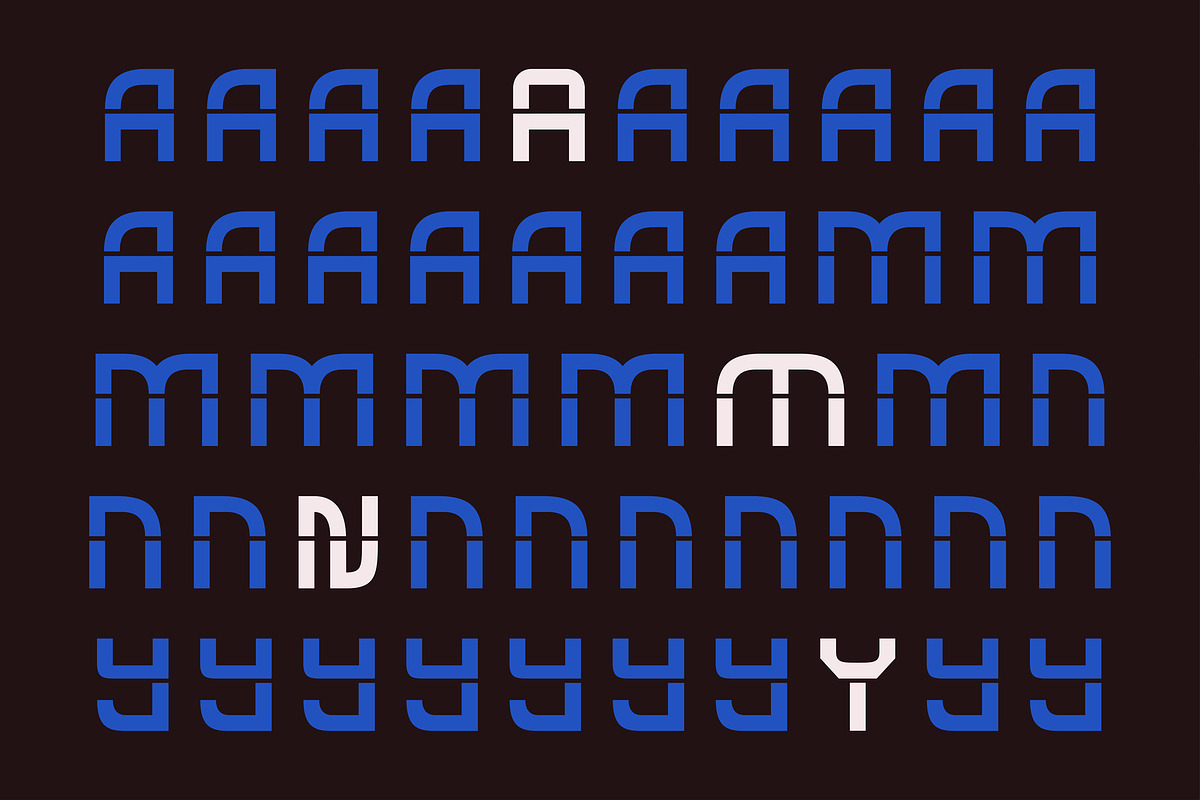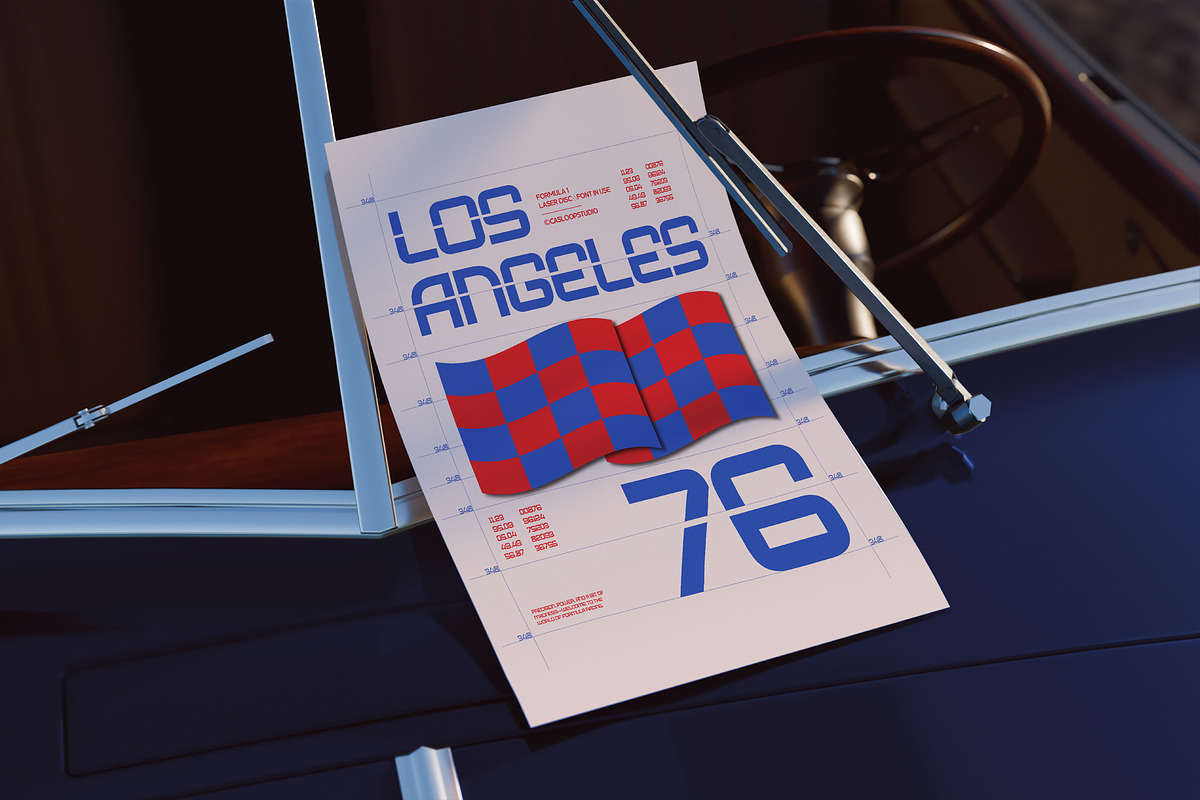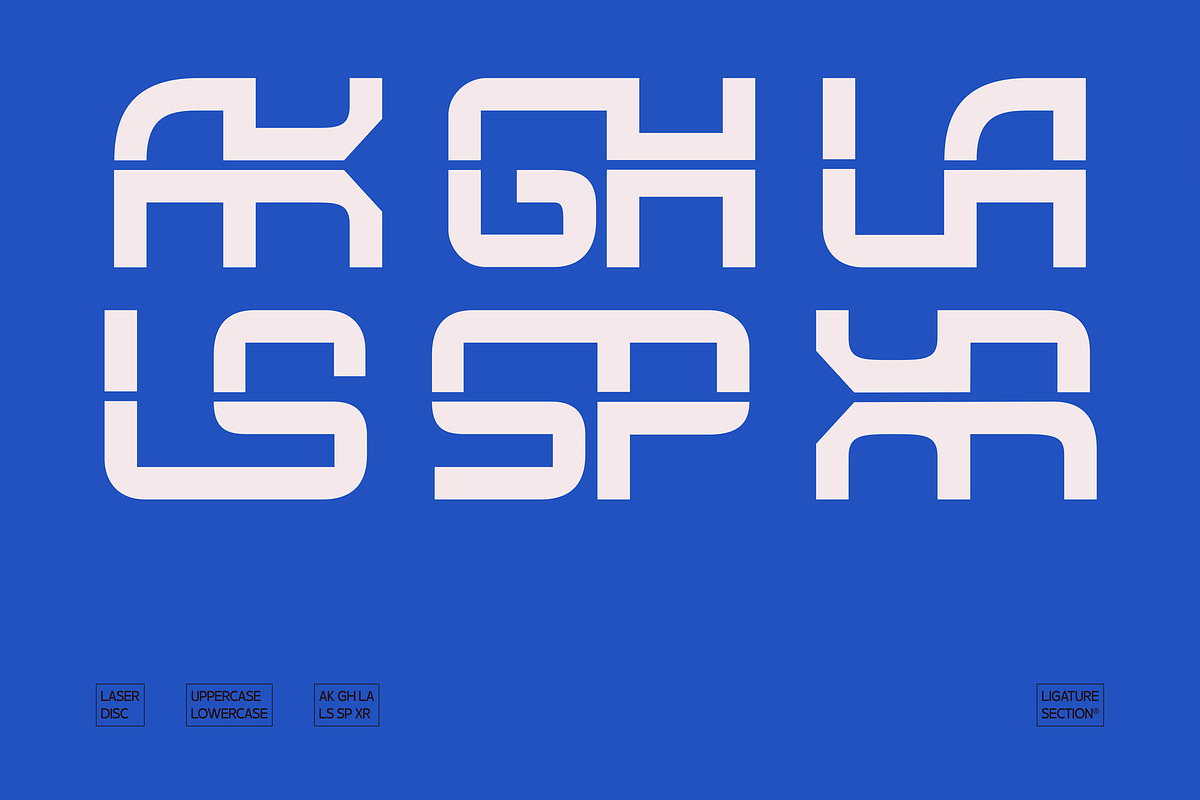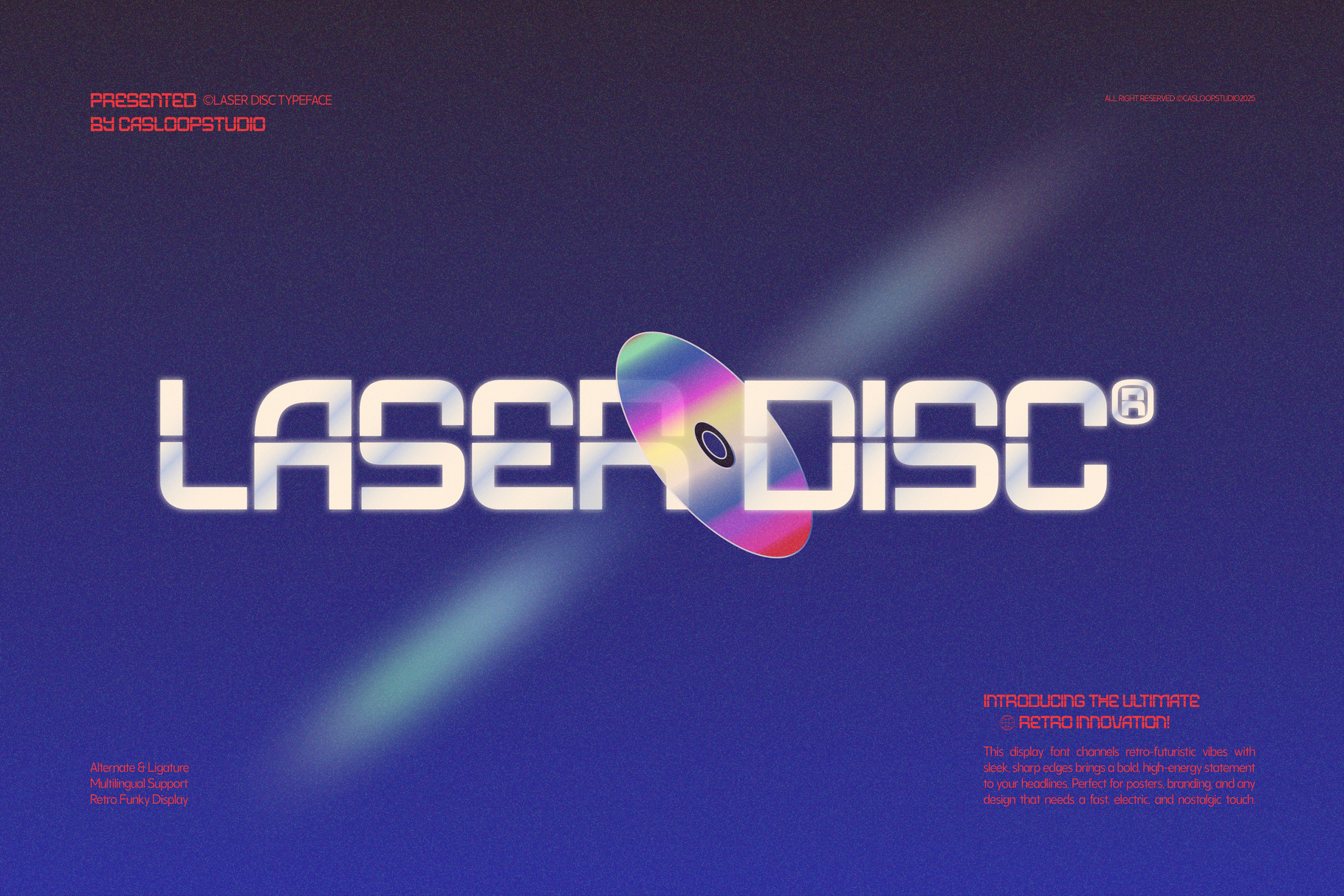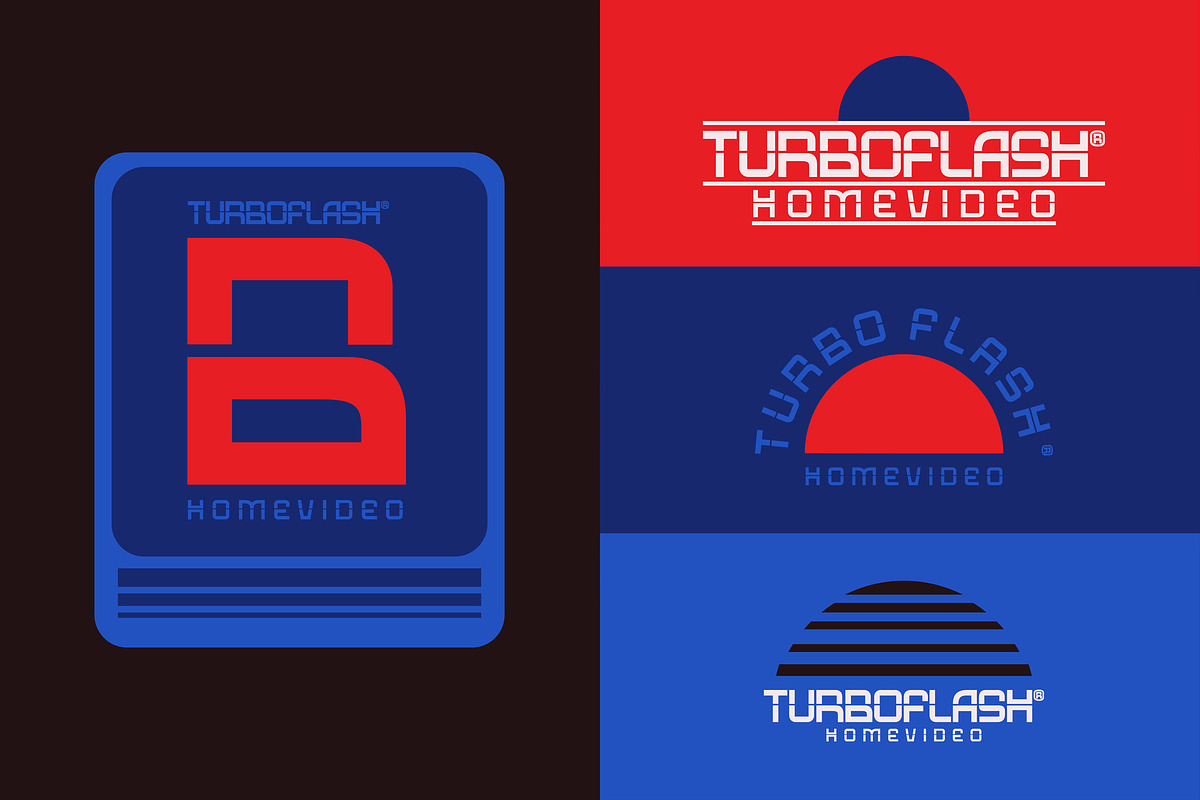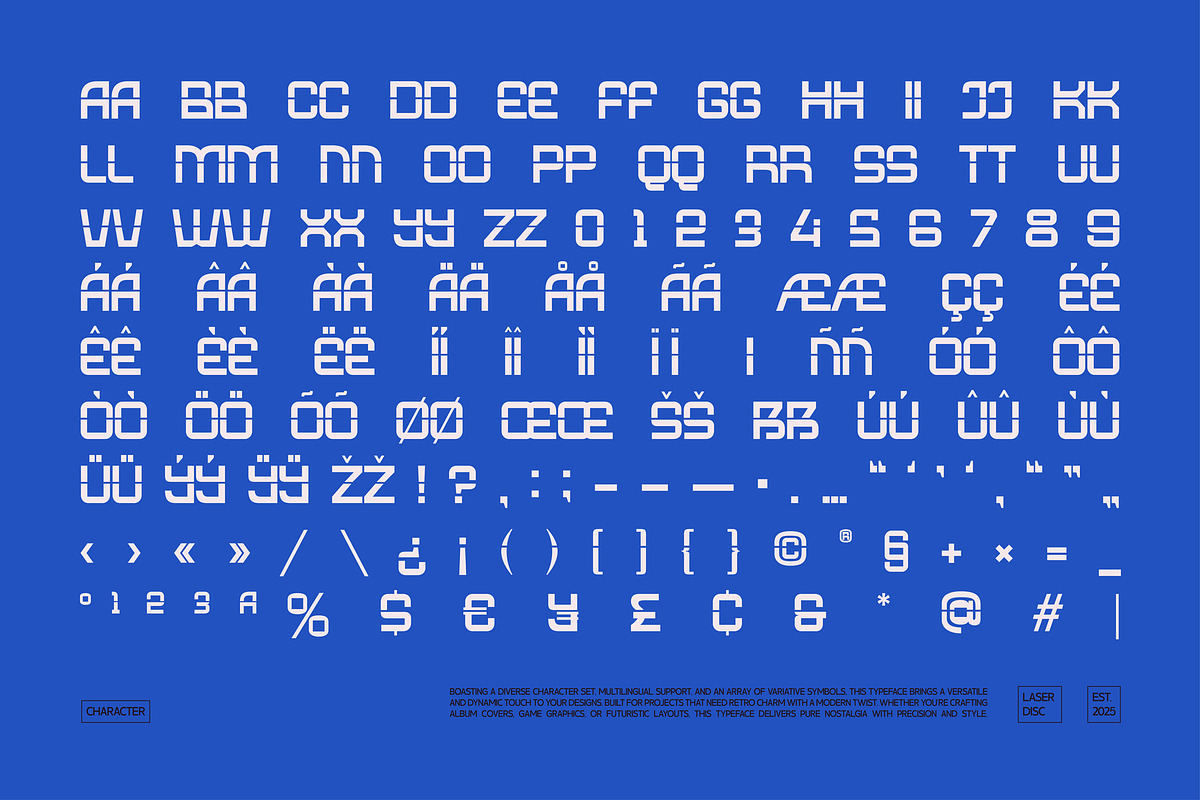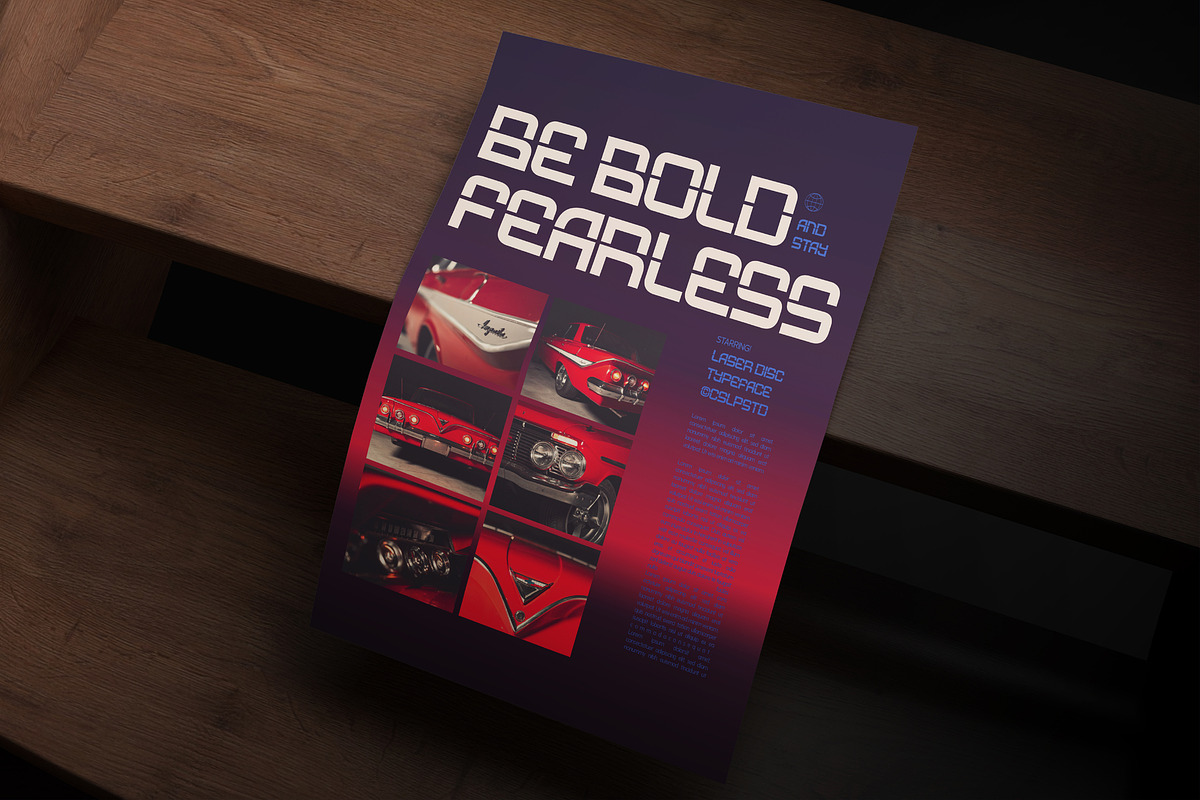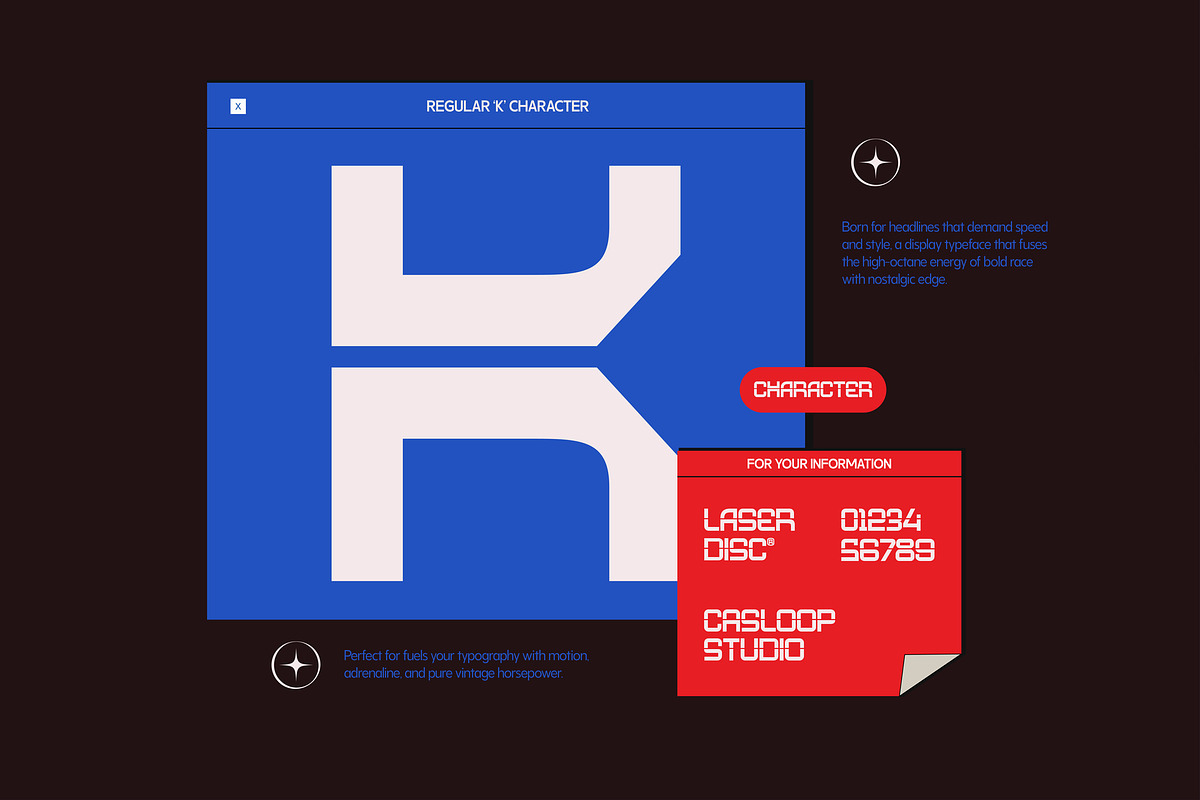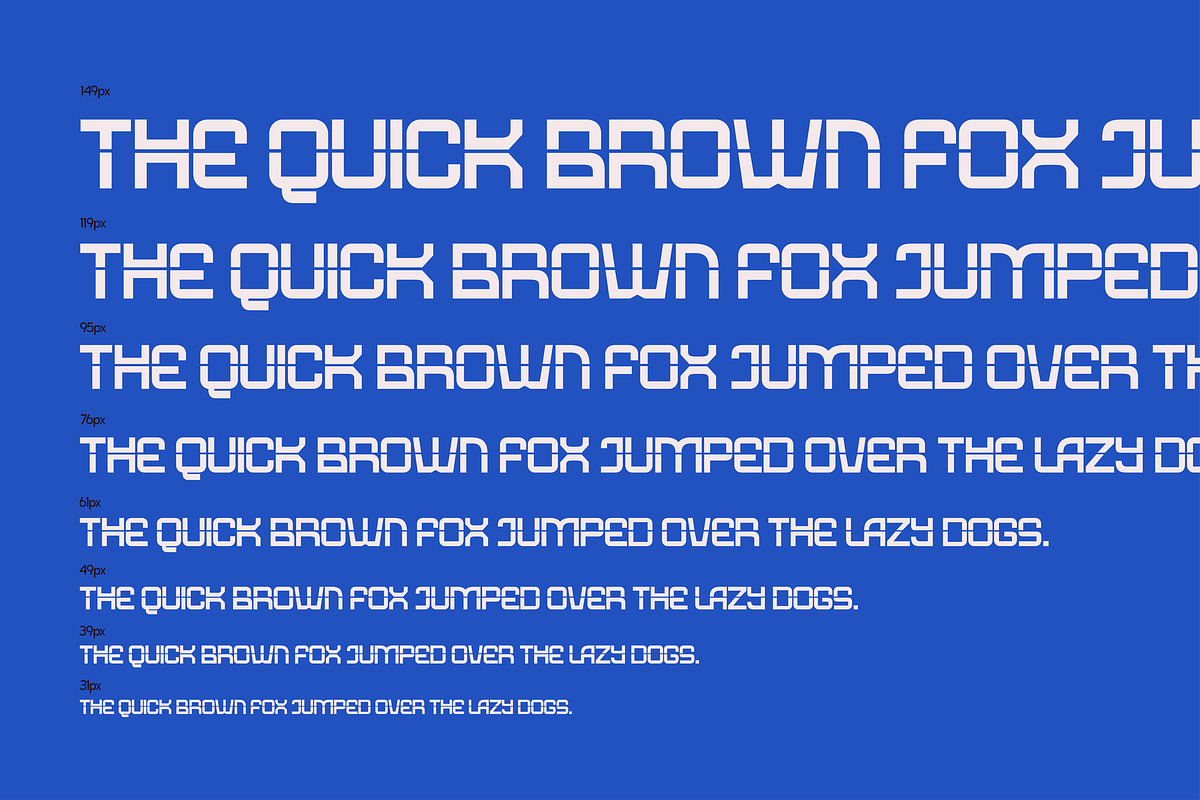
Laser Disc - Retro Sci-fi Logo Font
Laser Disc: Retro-Futuristic Typeface for Bold Visuals
Laser Disc is a high-energy typeface that blends nostalgic retro aesthetics with a futuristic edge. Its modular and geometric structure, combined with sleek, slanted letterforms, creates a bold statement in any design. Whether you're crafting album covers, gaming interfaces, or branding that demands a unique presence, Laser Disc delivers a dynamic and electric look.
Features -Retro-futuristic letterforms inspired by vintage tech and digital aesthetics Sharp, high-contrast design with slanted & aggressive shapes -Multiple weights and styles for maximum versatility -Alternate characters and ligatures for creative customization -Full multilingual support with extended characters -Available in OTF, TTF, WOFF, and WOFF2 formats
Best for -Album covers, music branding, and entertainment industry visuals -Gaming interfaces, esports logos, and futuristic digital graphics -Tech startups, digital products, and branding that embraces a sci-fi aesthetic -Apparel, merchandise, and packaging that needs a bold, electric appeal
Laser Disc is built for designs that demand speed, energy, and a strong visual identity. Whether you're working with neon-lit aesthetics or modern, high-tech visuals, this typeface ensures your work stands out.